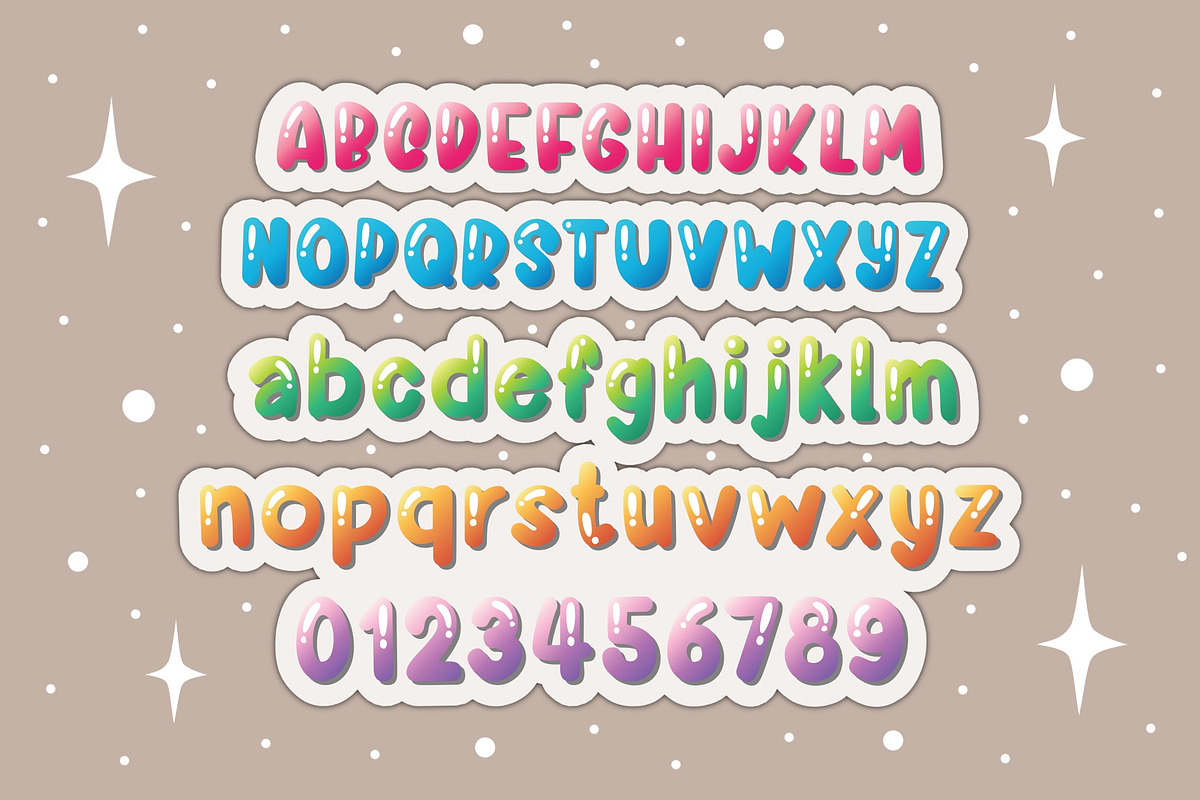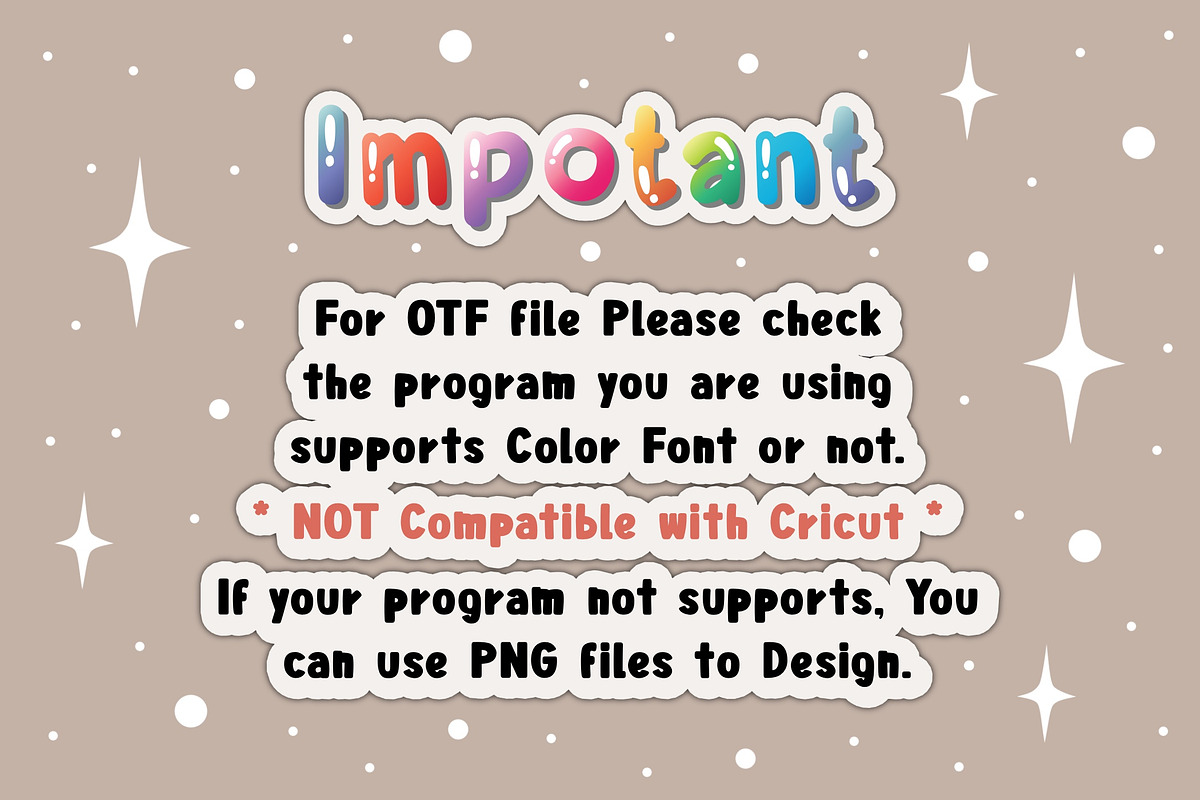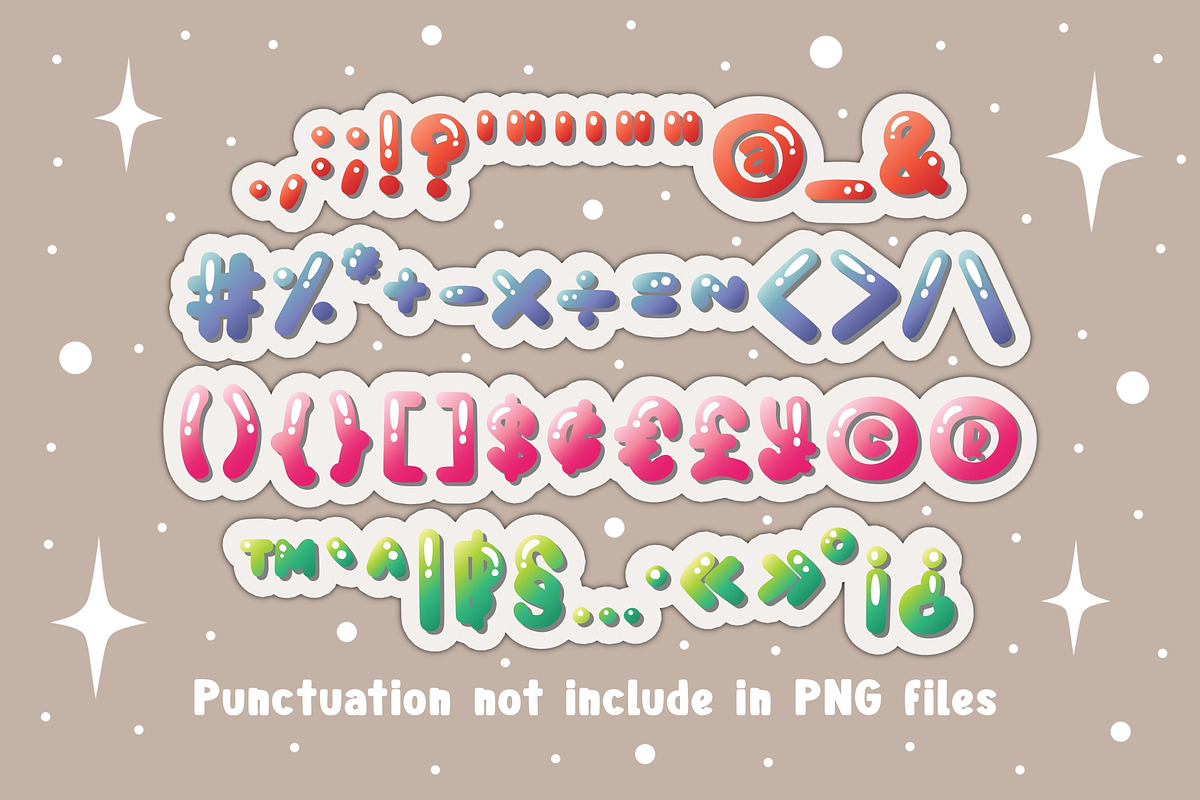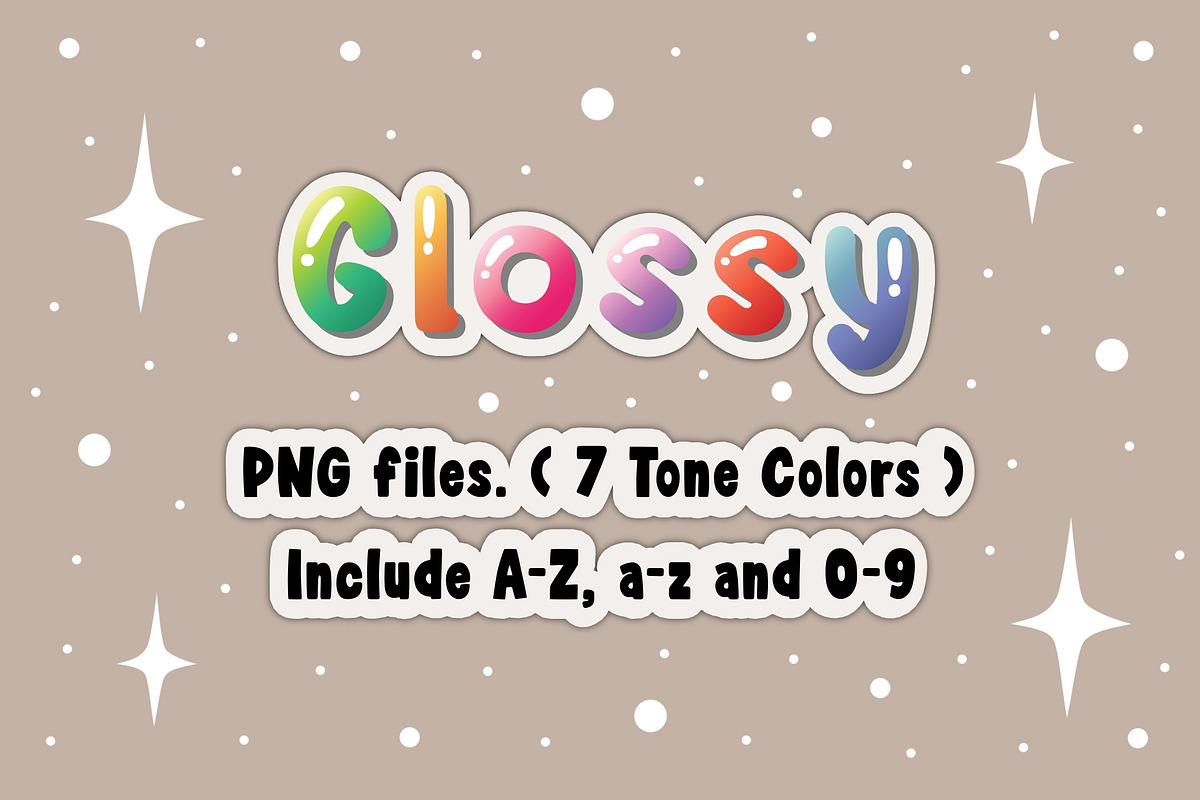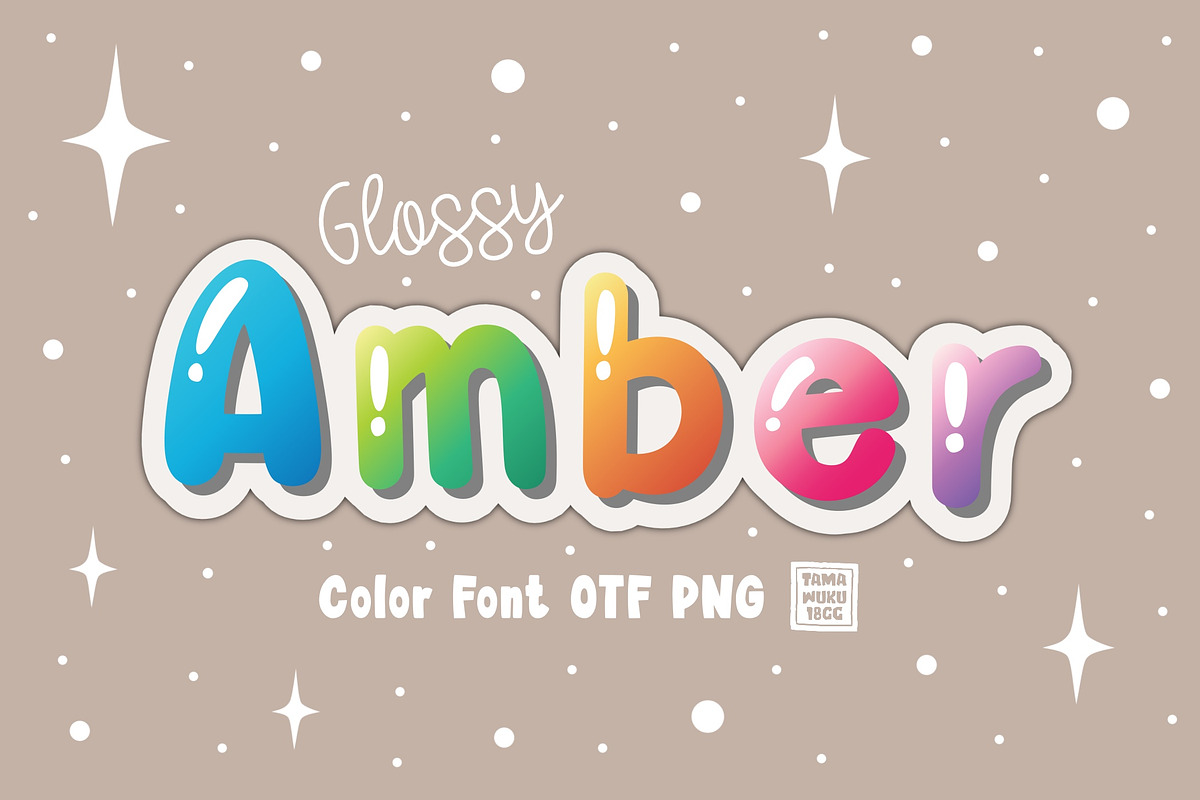
Glossy Amber OTF PNG
Glossy Amber is a Sweet Color Font in 7 Colors Tone with Gray Shadow. This font is the perfect fit for all of your t-shirt, social media, crafty DIY projects, and much more!